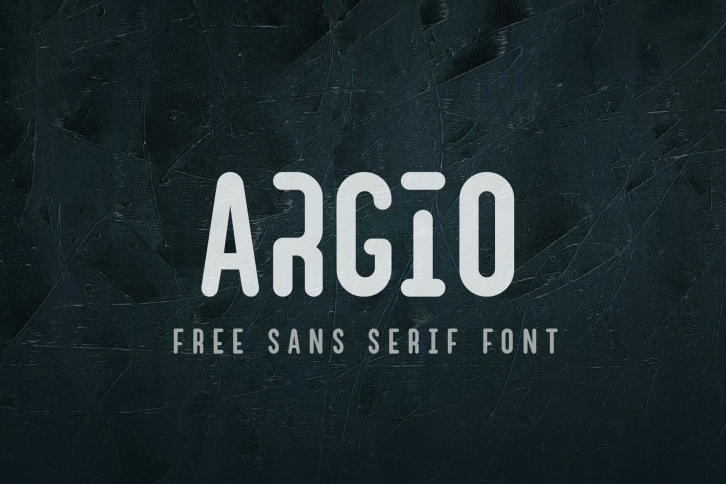
Argio Regular - Sans Serif with optional Stencils FONT Download
Argio Regular is a gorgeous font that was realeased on April 30, 2020. The font can be used in many style contexts and design environments. Perfect for invitations, magazines, websites, logos, and more! It was designed by shaped fonts and the file size is 18.62 MB. Thanks for checking out this font!